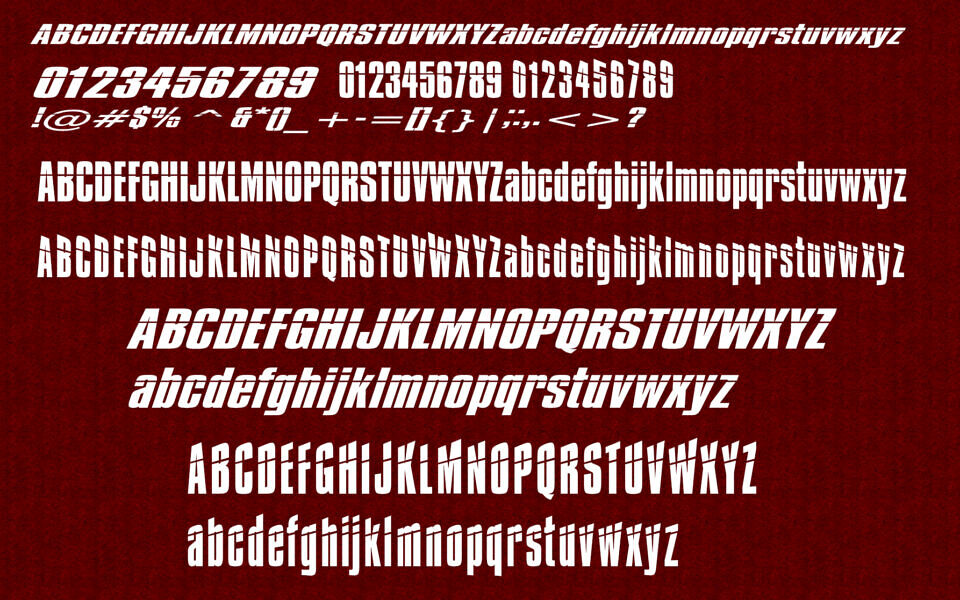
Impossible Font by Apostrophic Labs is a striking, experimental typeface with a futuristic edge. Its bold, sans-serif letters feature unique distortions and angular variations, giving it a dynamic, almost sci-fi aesthetic.
Available in seven distinct styles—including width, italic, slant, and disintegration options—this font is perfect for edgy posters, tech-inspired designs, or anything needing a bold statement. The innovative multi-axis design reflects Apostrophic Labs’ creative approach, offering versatility and a rebellious vibe that pushes typographic boundaries, making every word feel like a visual mission.